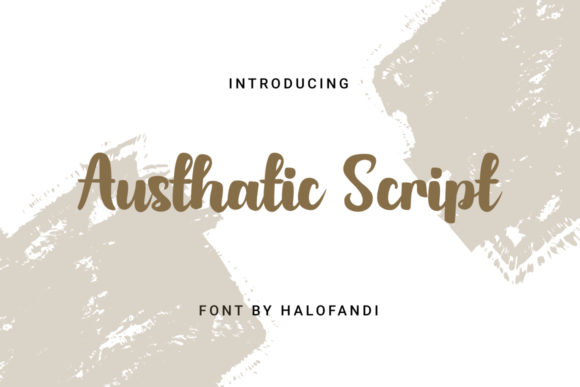
Step into the captivating realm of Austhatic Script, where beauty and elegance intertwine in a symphony of strokes. This exquisite handwritten font, meticulously crafted by halofandi, is a masterpiece designed to elevate your creative visions to new heights.
Austhatic Script is not merely a font; it's an embodiment of grace and sophistication. Its delicate curves and flowing lines evoke a sense of timeless elegance, making it the perfect choice for crafting heartfelt wedding invitations, heartfelt thank you cards, and inspiring quotes that resonate with your soul.
Unleash your imagination and let Austhatic Script adorn your greeting cards, transforming them into cherished keepsakes that convey the warmth of your affection. Embellish your logos and business cards with its ethereal touch, creating a lasting impression that speaks volumes about your brand's attention to detail and impeccable taste.
Austhatic Script is more than just a font; it's a gateway to a world of creative possibilities. Its versatility knows no bounds, effortlessly complementing a myriad of design projects, from personal stationery to sophisticated branding materials.
Indulge in the beauty of Austhatic Script and elevate your creations to the realm of the extraordinary. Let its enchanting strokes captivate hearts, evoke emotions, and leave an unforgettable mark on the world. Embrace the power of handwritten elegance and unlock the boundless possibilities that await you with Austhatic Script.